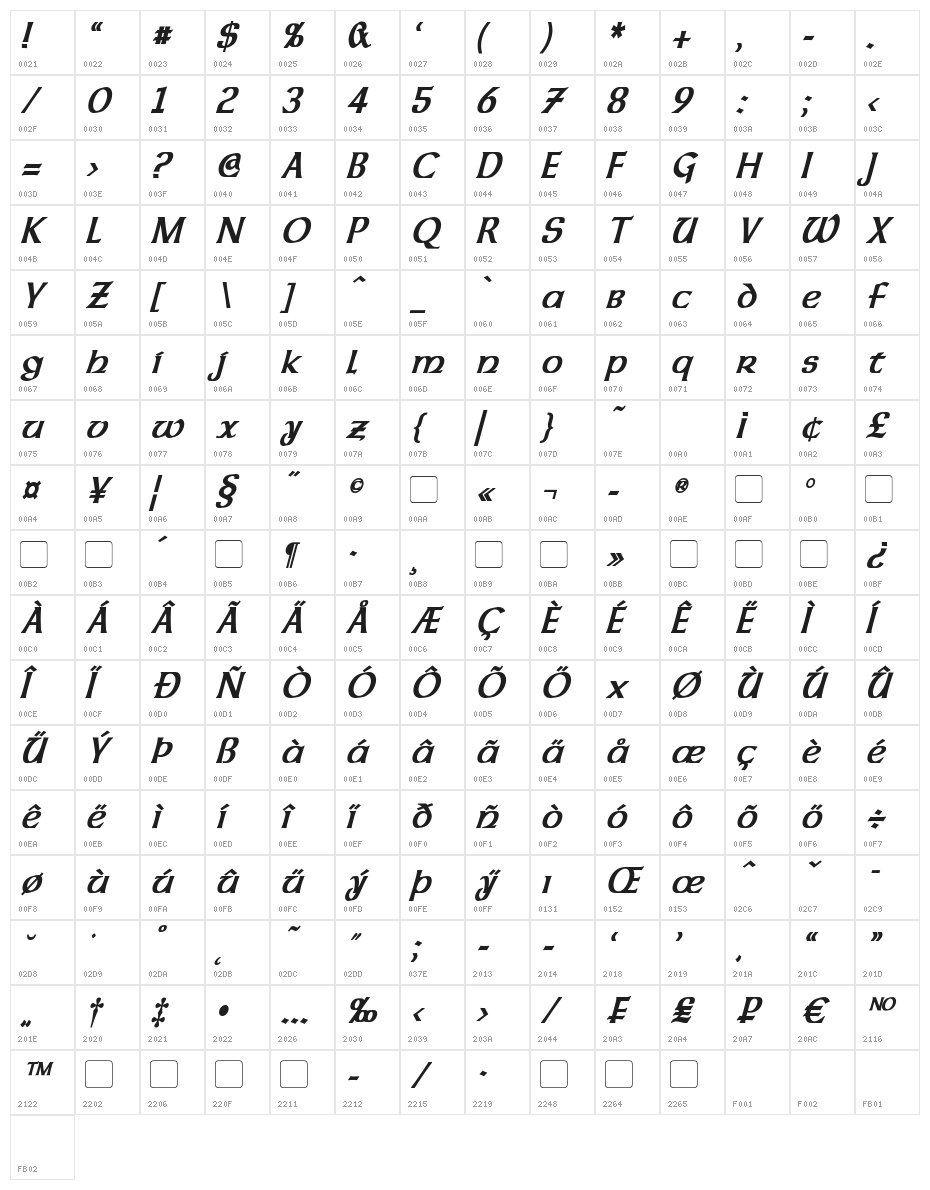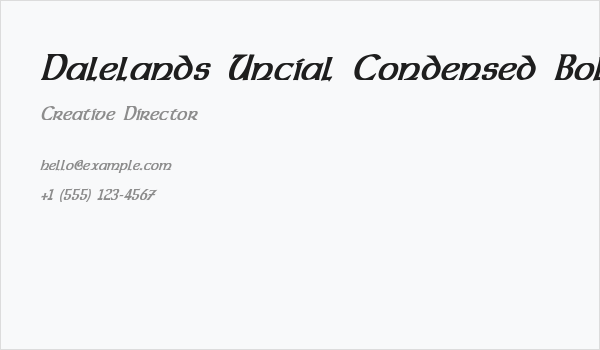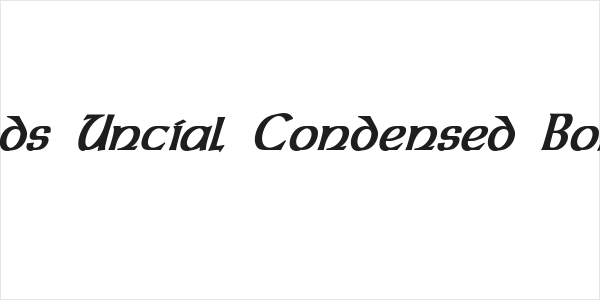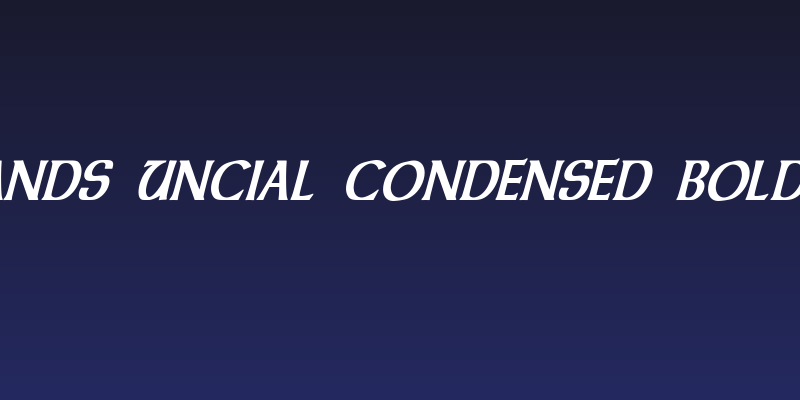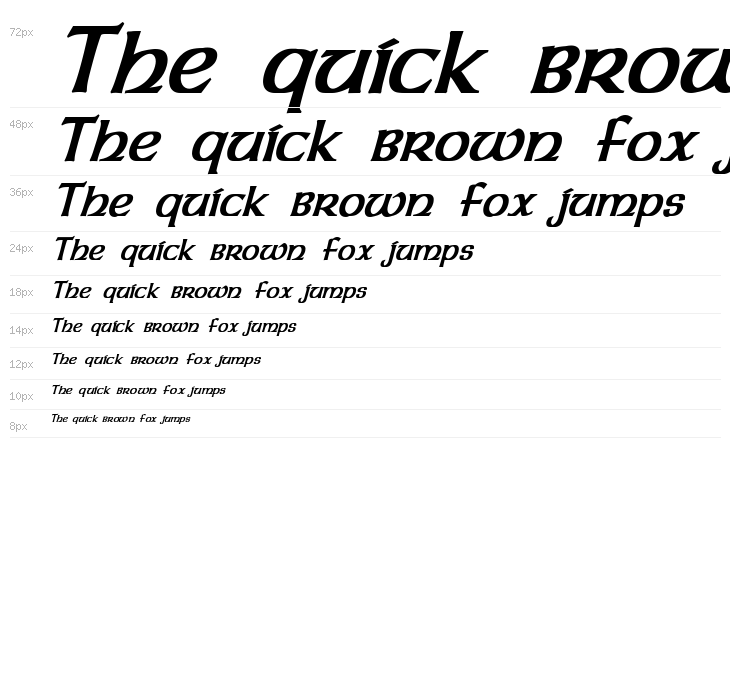
Dalelands Uncial Condensed Bold Italic Font
Dalelands Uncial Condensed Bold Italic Description
This font features a unique blend of medieval and modern aesthetics, characterized by its bold and italicized style. The condensed letterforms give it a compact appearance, making it suitable for creating a strong visual impact. The uppercase letters exhibit a distinct uncial influence, with rounded forms and a slight slant, adding a touch of elegance and historical charm. The lowercase letters maintain this style, providing consistency across the typeface. The numerals and special characters are designed to match the overall theme, ensuring a cohesive look. The font's high contrast between thick and thin strokes enhances its readability while maintaining a decorative flair.
| Proposed Projects | Ideal for fantasy-themed projects, historical documents, book covers, or any design requiring a medieval touch. |